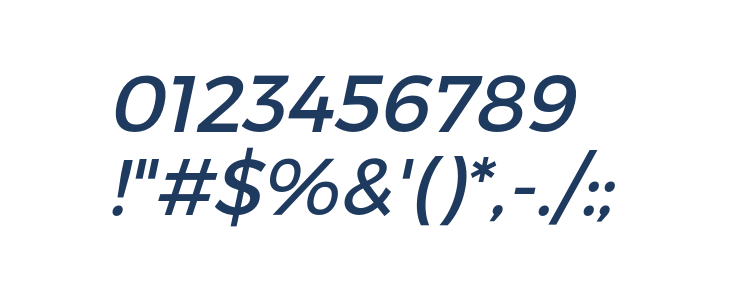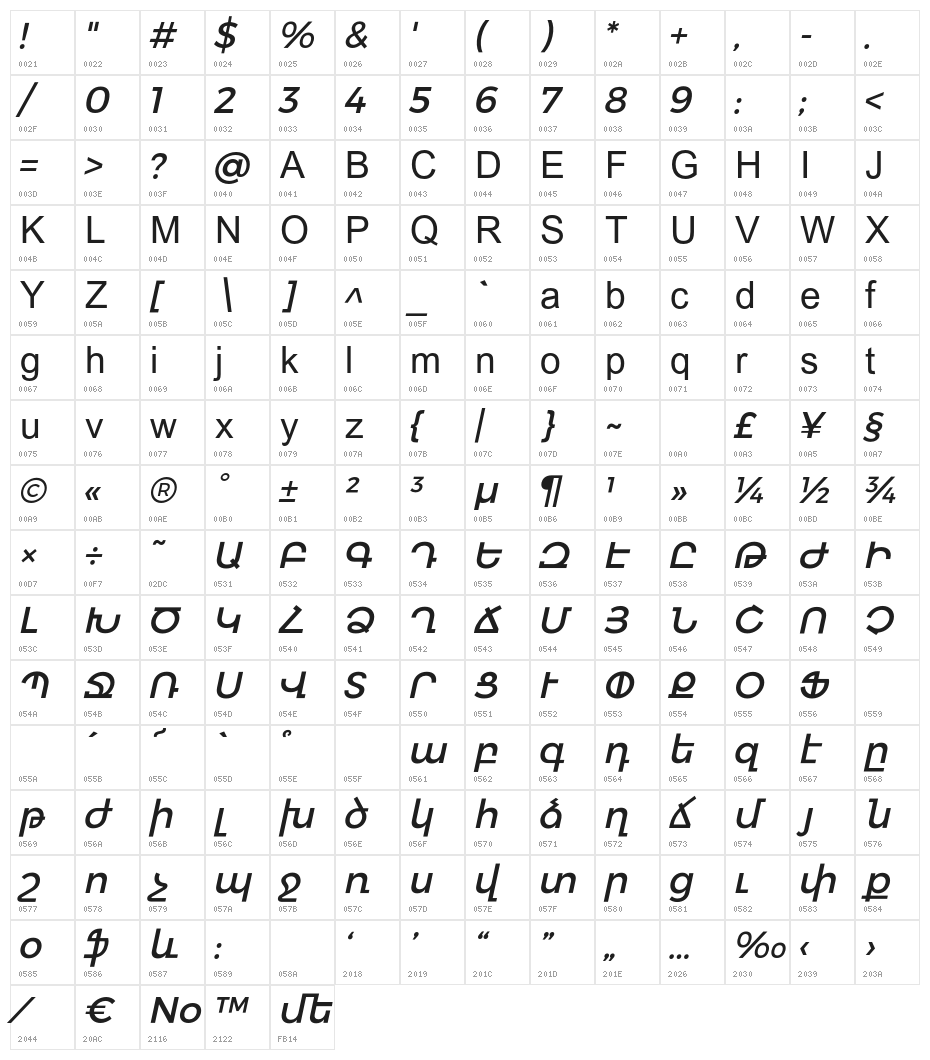
Bokonique-Italic Font
Bokonique-Italic Description
This font features a clean and modern sans-serif style with a slight italic slant, giving it a dynamic and contemporary appearance. The characters are well-proportioned with a consistent stroke width, contributing to its readability and versatility. The uppercase letters are bold and assertive, while the lowercase letters maintain a friendly and approachable feel. Numbers are clear and distinct, making them suitable for various applications. Special characters are designed with precision, ensuring they complement the overall aesthetic of the font.
Proposed ProjectsIdeal for branding, advertising, digital content, and editorial design projects.